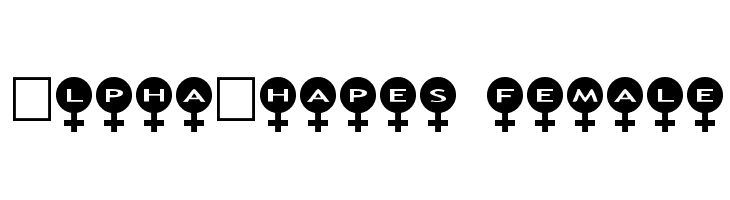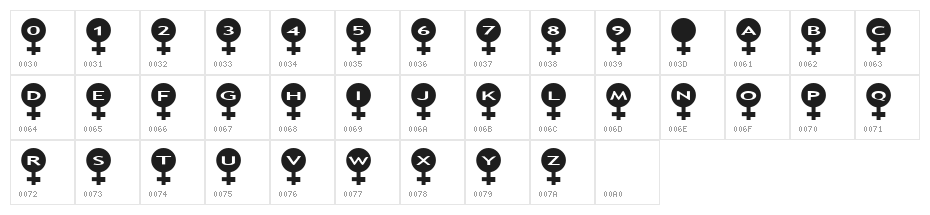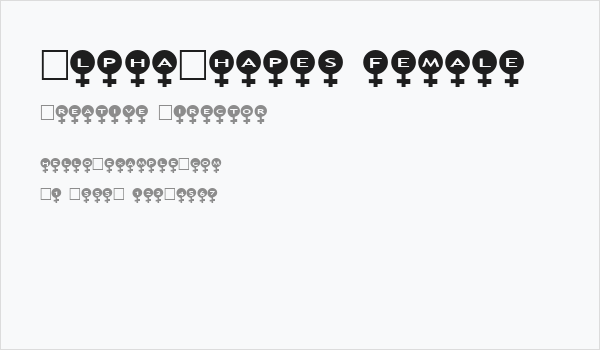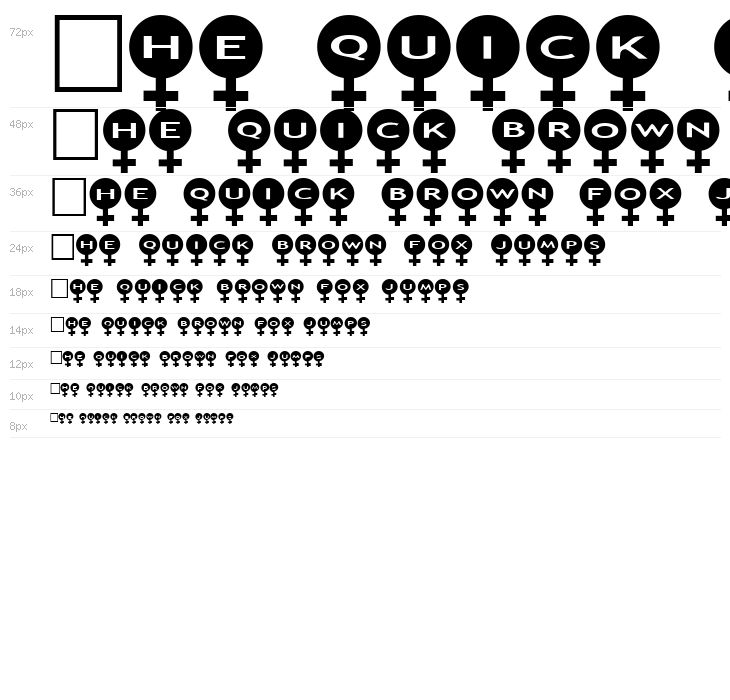
AlphaShapes female Font
AlphaShapes female Description
This unique font features each character enclosed within a female gender symbol, creating a bold and distinctive appearance. The letters and numbers are capitalized and centered within the symbol, offering a uniform and structured look. The design is highly decorative, making it suitable for projects that aim to convey themes of femininity, gender identity, or empowerment. The characters are evenly spaced within the symbols, ensuring readability while maintaining the decorative aspect. The font's style is modern and eye-catching, ideal for creative and thematic designs.
Use CaseLogos, Posters, Thematic Designs
Proposed ProjectsIdeal for feminist-themed posters, gender studies publications, or any project emphasizing gender identity and empowerment.